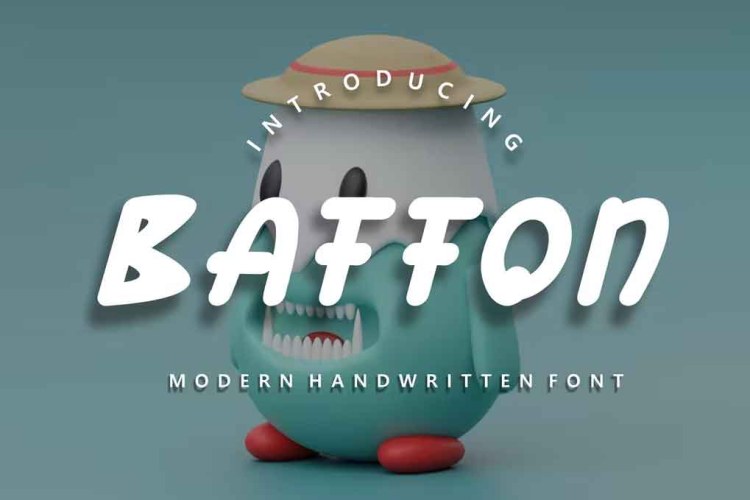
Baffon Modern Font
Baffon modern handwritten font – Handwriting Script Font is a Cute Handwriting typeface, perfectly suitable for creating quotes, Wedding Invitations, lifestyle designs s…
Baffon modern handwritten font – Handwriting Script Font is a Cute Handwriting typeface, perfectly suitable for creating quotes, Wedding Invitations, lifestyle designs such as logos, title, magazine, and more.
Where Baffon Modern Font works best
A short phrase in Baffon Modern Font carries warmth that a typeset sans cannot fake; keep the rest of the card plain.
Chalkboard-style headings in Baffon Modern Font make a menu feel hand-made. Keep the dish descriptions in a simple face so prices stay readable.
One line of Baffon Modern Font over a photo is enough; the script carries the tone and the caption does the work.
What kind of work does Baffon Modern Font suit?
It sits in the Script And Handwritten group and reads as branding, handwritten, modern, playful. That makes it a candidate wherever those qualities help: headings, packaging, social graphics and brand work. Set it at the size you plan to use before deciding.